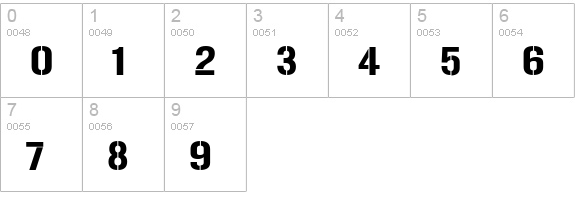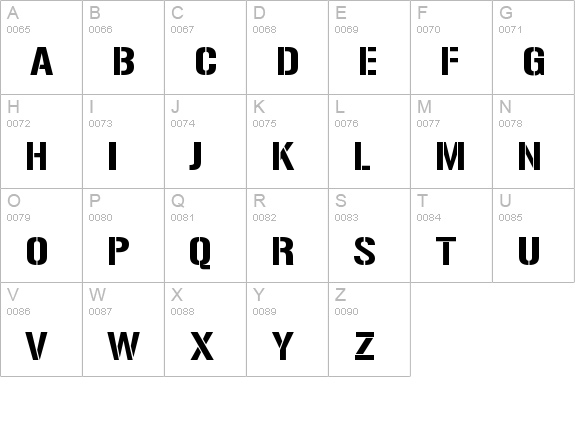
Gunplay Font Details
Gunplay font is a bold and dynamic typeface that exudes strength and power. With its sharp angles and unique design, Gunplay is perfect for making a statement in headlines, posters, and other attention-grabbing designs. This versatile font combines modern style with a touch of edginess, making it a great choice for projects that require a strong visual impact. The best part? Gunplay font is available for free download at FontsMarket.com. This means you can add this striking font to your collection without any cost, making it a valuable resource for your creative projects. Don't miss out on the opportunity to elevate your designs with the impactful Gunplay font - download it now and get ready to make a bold statement!